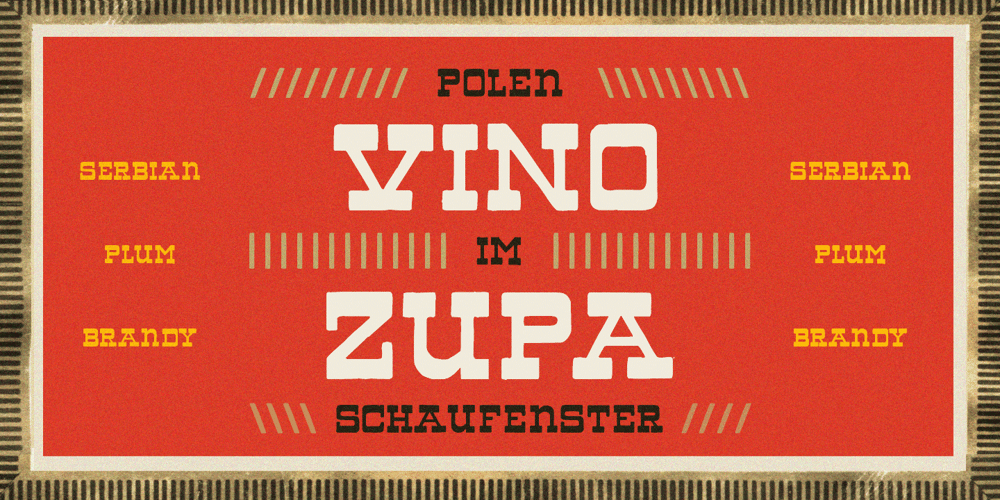
PiS VinoZupa Font Family was designed by Hannes Siengalewicz and published by PiS. PiS VinoZupa contains 1 styles and family package options. PiS VinoZupa is based on a logo found on an old Serbian bottle of brandy. The vintage 1971 plum fuel burns down your throat and blinds your eyes, the serifs you draw grow bigger and bigger with every sip you take. A Western-style slab serif font, coming from the finest distilleries in an Eastern European village. Features heavy caps with a few alternating glyphs in the lowercase letters and all the nice diacritics you need for super-drunk Serbian babble.